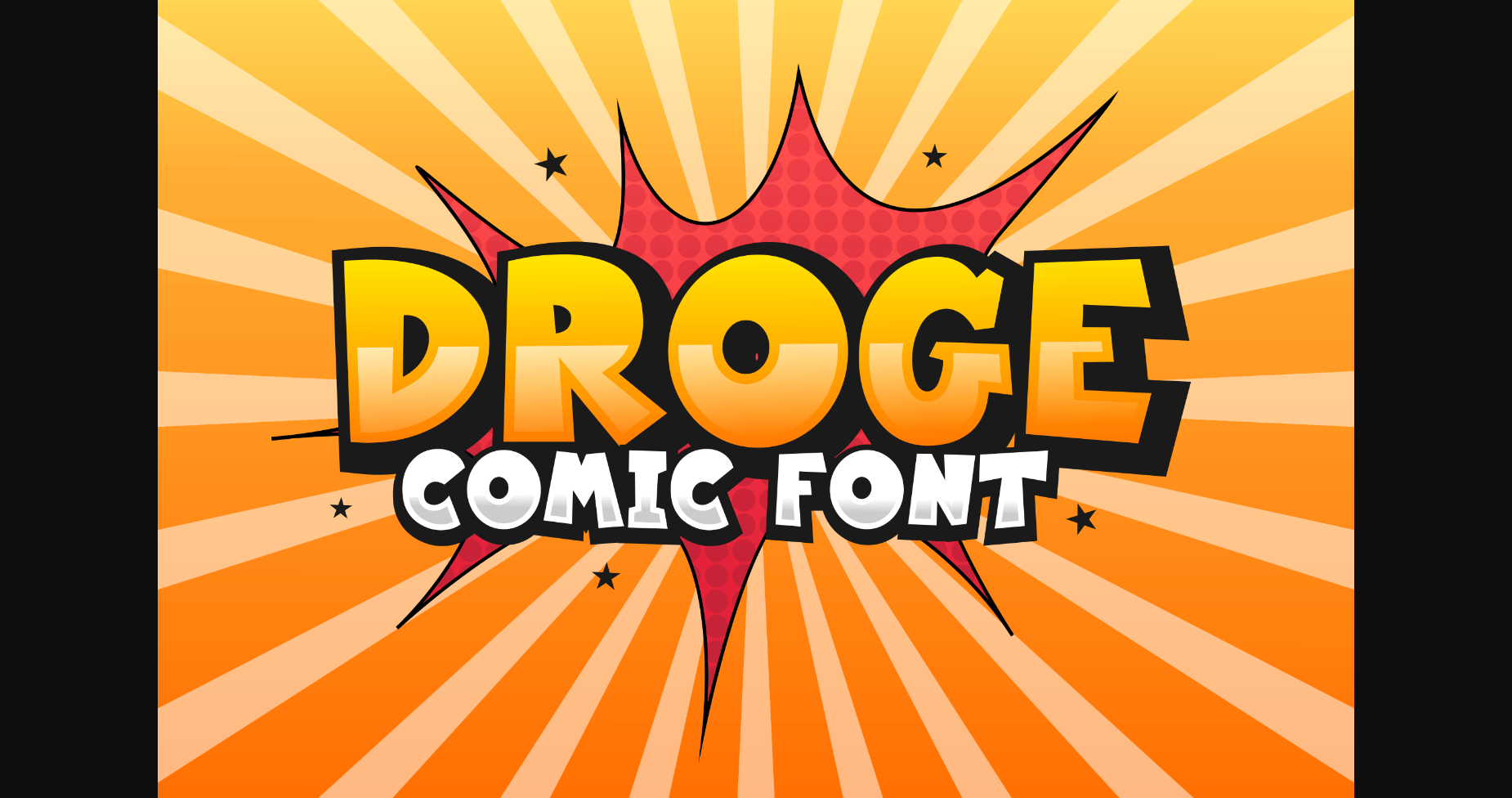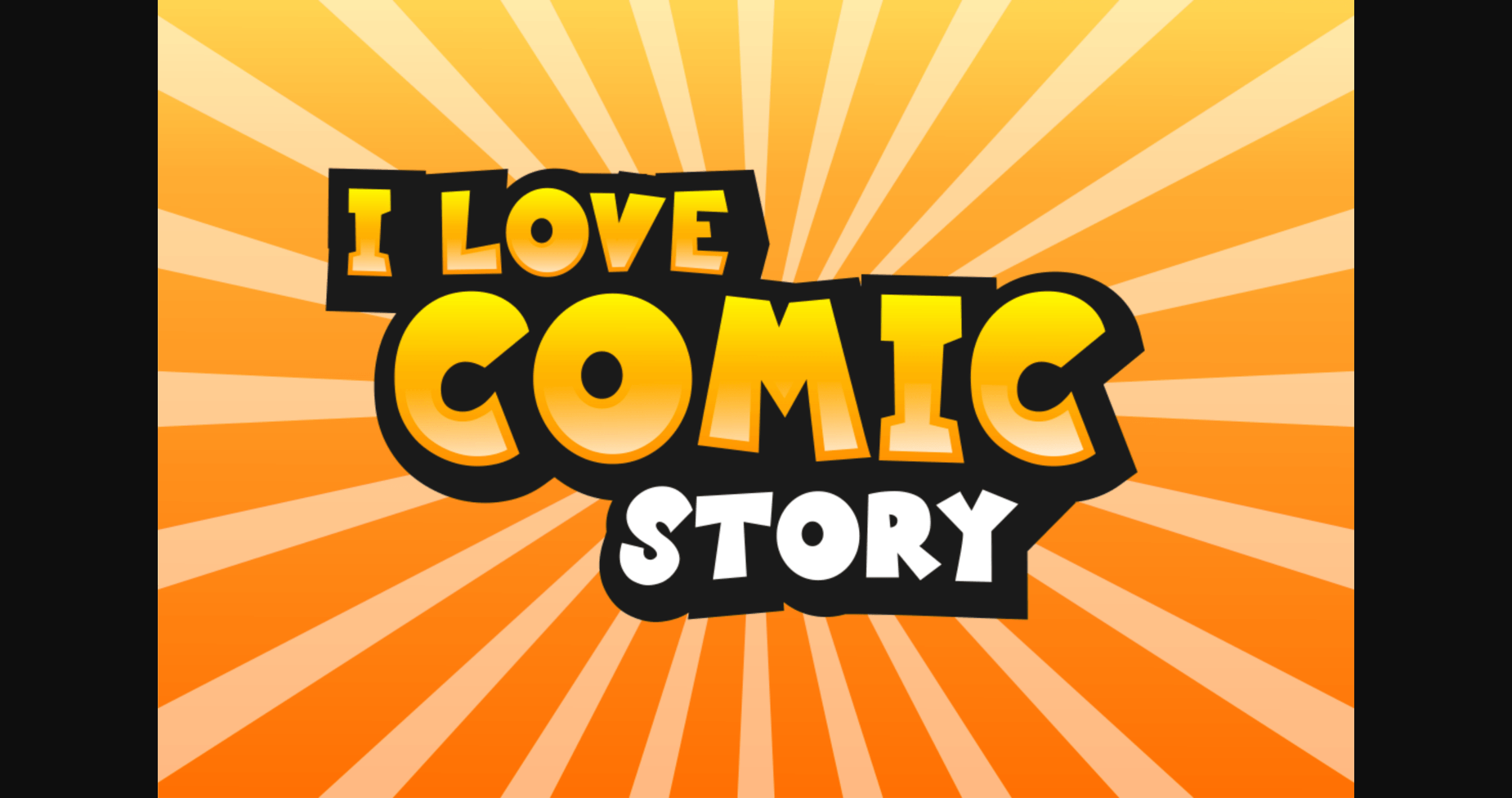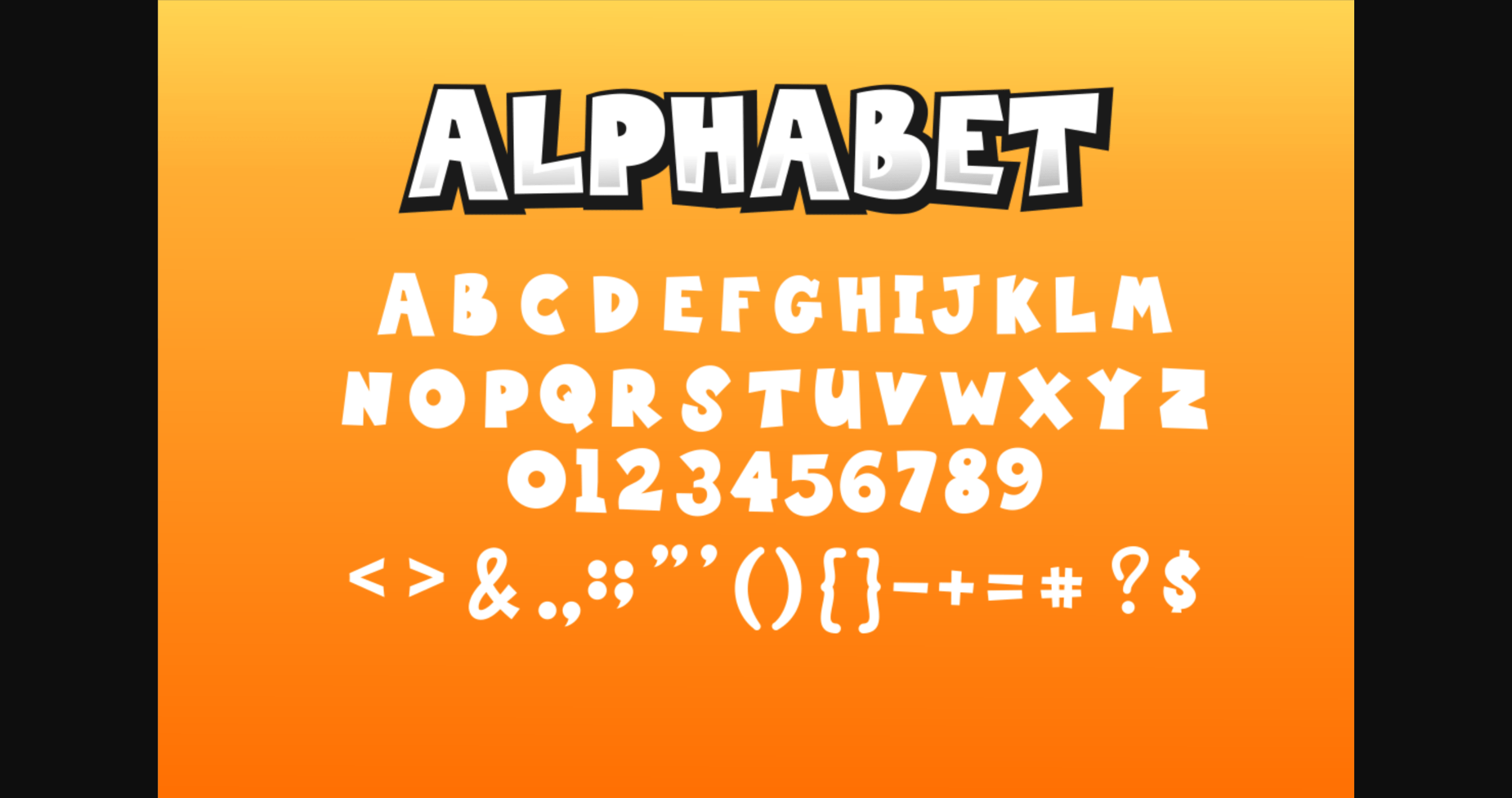
Droge Font
About Droge Font
Droge is a cute and fun display font with some fat strokes. Is a great way to add an adorable twist to any design project, be it a logo, stationery, poster, or something else.